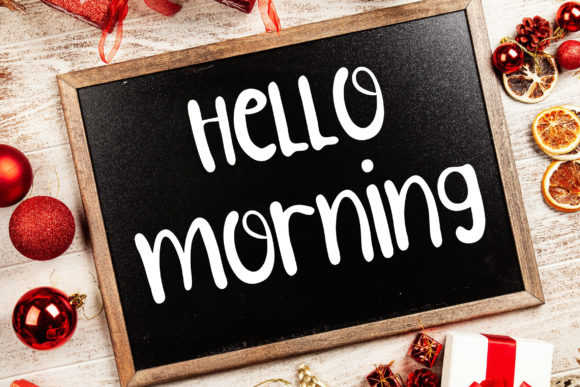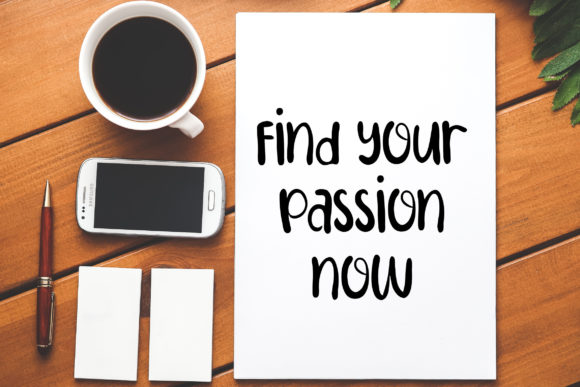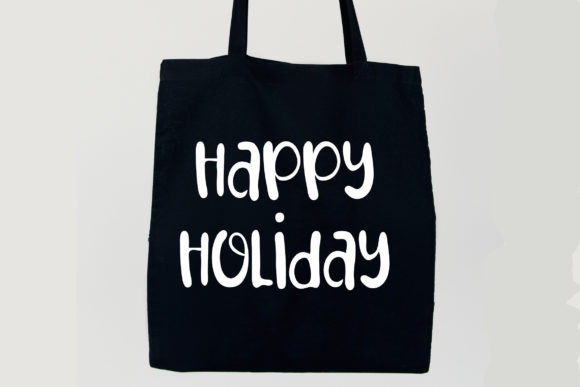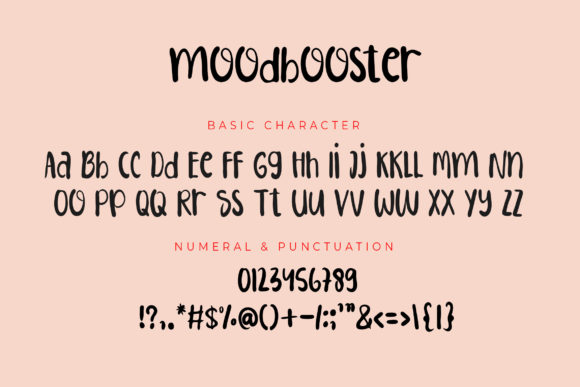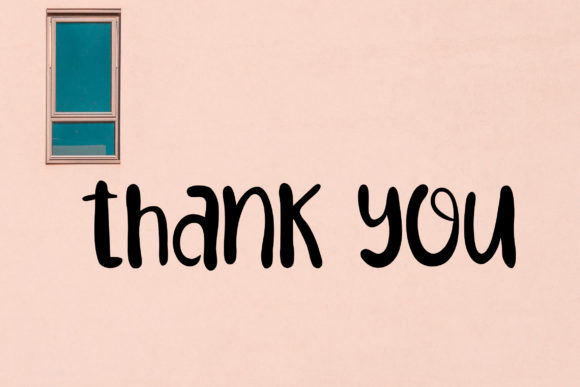
Introduction to Moodbooster Font
Have you ever been working on a creative project, pouring your heart and soul into it, only to realize that something is missing? For designers, finding the perfect font can be the key to unlocking that extra oomph that takes a project from good to great. That’s where the Moodbooster Font comes in – a delightful, high-quality addition to any designer’s toolkit.
Imagine having a font that can add a touch of whimsy and fun to your designs, making them stand out from the crowd. With its cute, round lettered and fun handwritten style, the Moodbooster Font is the perfect design resource for anyone looking to elevate their creative project. Whether you’re working on a digital design, a print project, or even a social media graphic, this font has the potential to be a game-changer.
Key Features of Moodbooster Font
- Unique and playful design: The Moodbooster Font is perfect for creative projects that require a high-quality, visually appealing font.
- Multi-language support: The Moodbooster Font supports a wide range of languages, making it a versatile design resource for international projects.
- Customizable: The Moodbooster Font is fully editable, allowing designers to customize the font to fit their specific design needs.
Honest Review: Moodbooster Font
I recently had the chance to work with the Moodbooster Font, and I’m excited to share my thoughts on this design resource. Overall, I found it to be a high-quality addition to my toolkit for creative projects.
One of the things I appreciated most about the Moodbooster Font is its versatility. It comes in a variety of weights and styles, making it easy to find the perfect fit for your project. I also loved the transparent background, which gives you endless possibilities for layering and composition. ✨
Here are a few of the things I liked about the Moodbooster Font:
- High-quality design – the font is well-crafted and looks great at various sizes
Of course, no font is perfect, and I did encounter a few limitations while working with the Moodbooster Font. ⚠️ For example:
- Some of the weights and styles can be a bit difficult to read at small sizes
- The font may not be suitable for projects where a more traditional, serif font is required
Overall, I was impressed with the Moodbooster Font, and I would definitely recommend it to designers looking for a high-quality, creative solution for their next project.
The Moodbooster Font is ideal for use in social media graphics, blog posts, and marketing materials. It’s also a great choice for creating invitations, posters, and other visual materials for events and promotions.